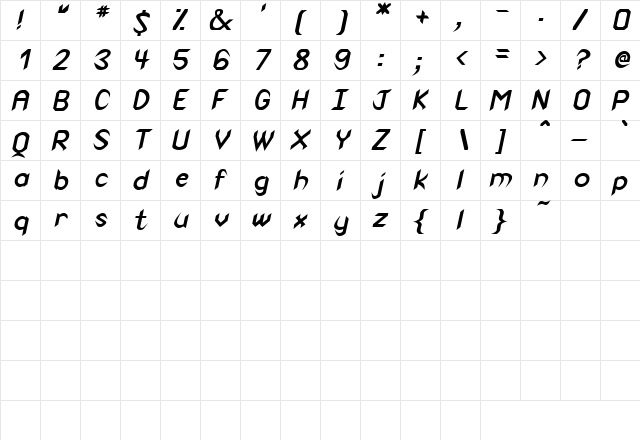
Venom BoldOblique Font Preview
Venom BoldOblique
Design Context for Venom Typeface
Venom takes a measured approach to typography — its balanced proportions and neutral character make it a reliable workhorse for both digital and print work. Its italic angle brings a sense of urgency and motion to the letterforms. The heavy weight commands attention and anchors typographic hierarchies.
Pro Tip: Use Venom for emphasis, pull quotes, and subheadings where its slanted energy can add rhythm to the layout.